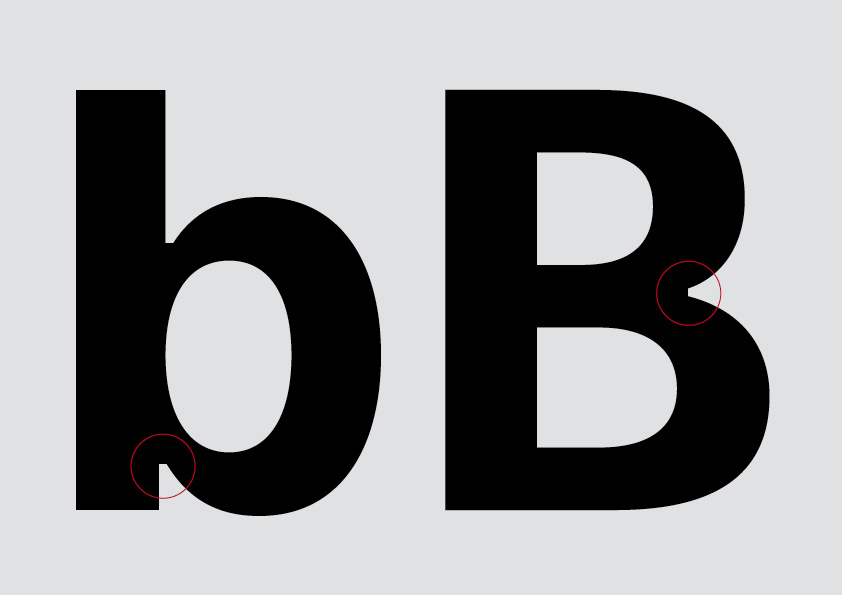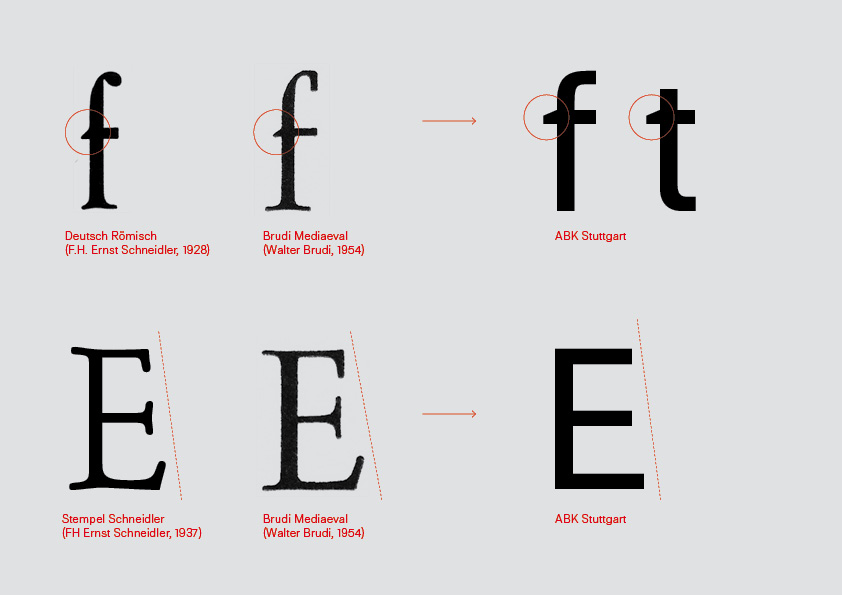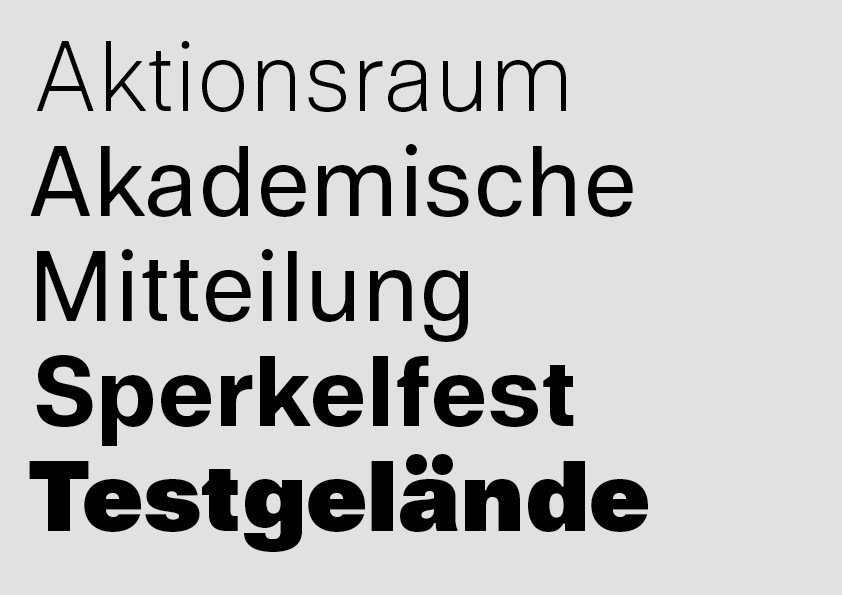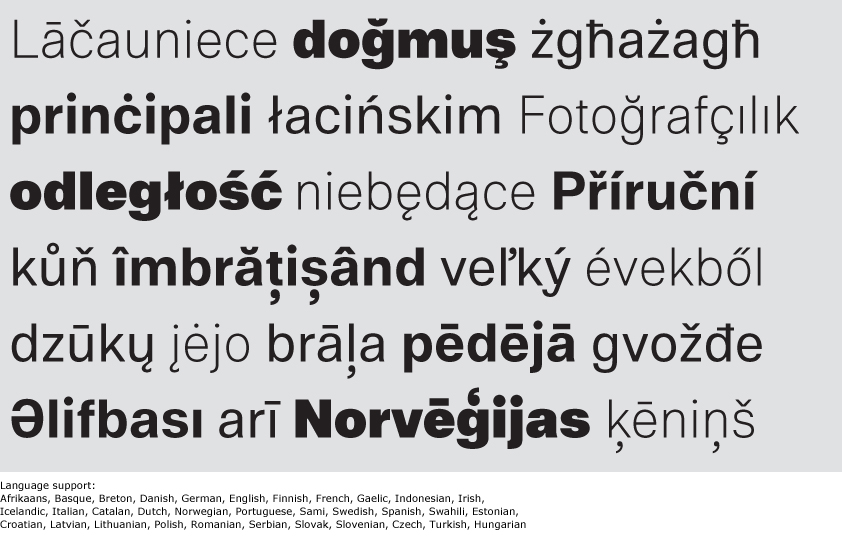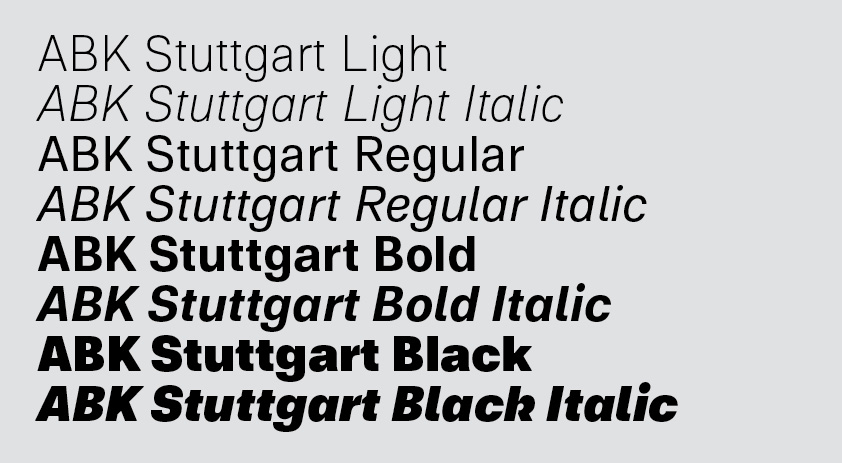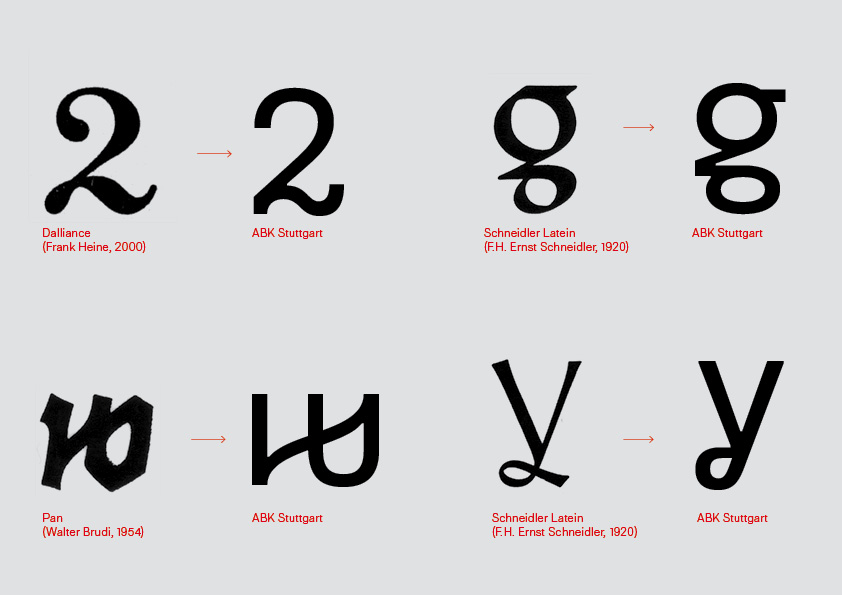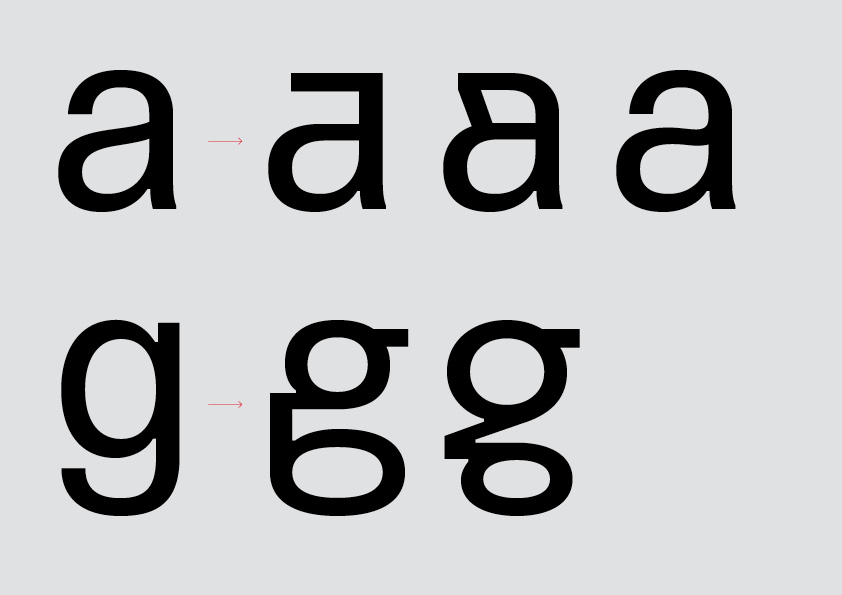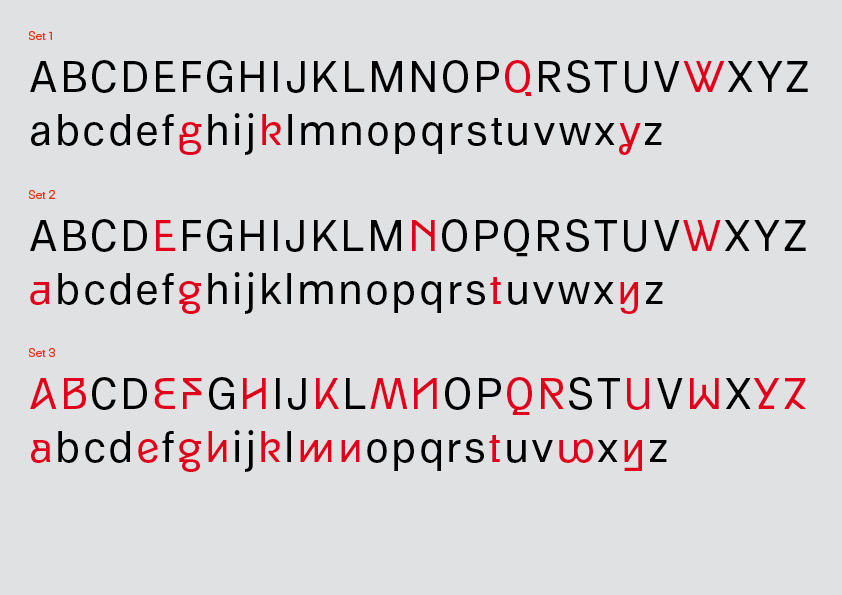
ABK Stuttgart
ABK Stuttgart is a unique corporate font for Stuttgart State Academy of Art and Design which is inspired by the academy’s comprehensive type design tradition. Features from different typefaces by former professors and students were incorporated in the font’s DNA, among them are designs by F.H. Ernst Schneidler, Imre Reiner, Kurt Weidemann and Frank Heine. Besides the regular fonts for body text applications, the type family offers a wide range of alternative glyphs, including 3 stylistic sets. (Stefanie Schwarz & Dirk Wachowiak, 2016-2018). In 2020 an extended version of the type family has been released as Referenz Grotesk by the type foundry Sudtipos.